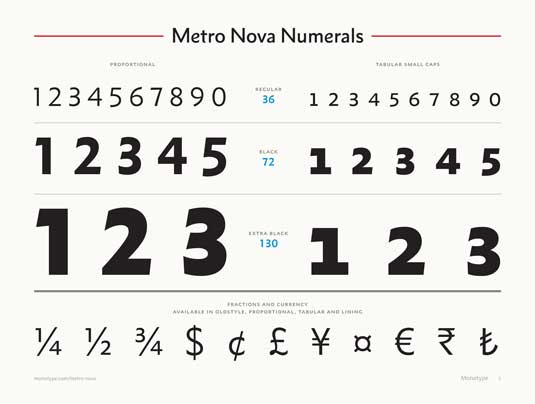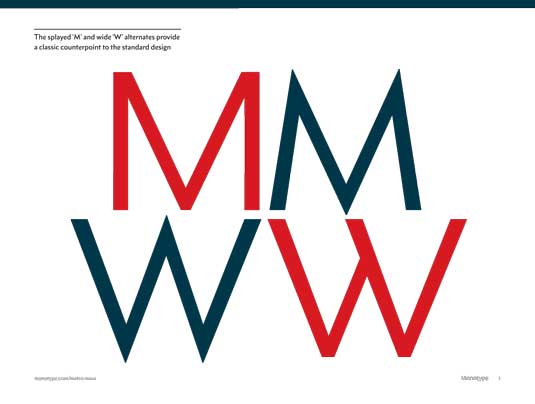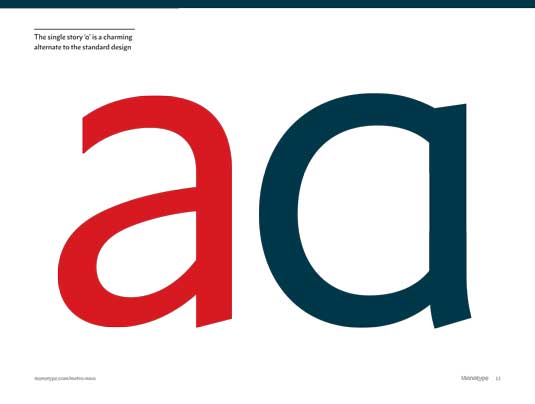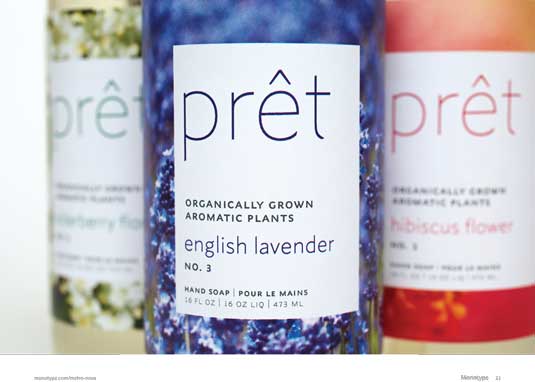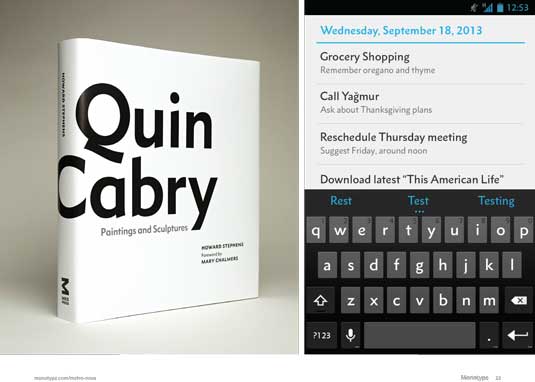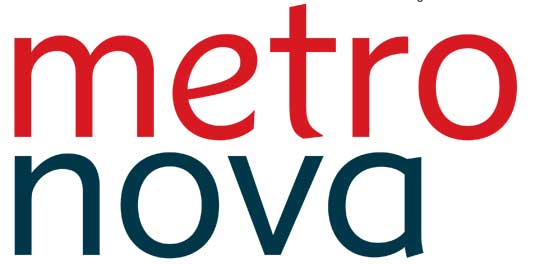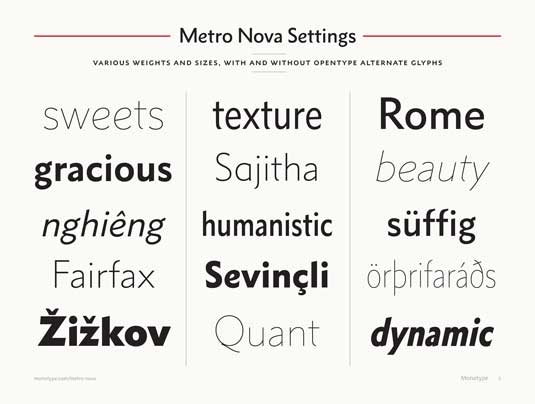
Font of the day: Metro Nova
Metro Nova by Toshi Omagari
Designed by Monotype's Toshi Omagari, the 26-font Metro Nova typeface family is a next-generation version of William Addison Dwiggins' Metro design.
The original fonts were used for standard typesetting machines for newspaper printing, magazines and posters from the late 19th century to the 1970s. It was particularly popular in North America in the 1950s because of its classic sans serif design with warm distinctive qualities.
Modernising the font
Omagari has worked to modify the design, removing duplexing restrictions to make it appeal to today’s digital requirements and design needs – but without sacrificing the essence of the original. "The lowercase 'e' is what I adore the most," he says. "It is said that you get the 'e' right when it looks like it's smiling, and the one in Metro Nova is exceptionally joyful — one that makes me smile, too.
"Designing type is an opportunity to maintain the visual aspects of a culture, as well as to bring it forward. Sensitivity to other languages and scripts is essential for a type designer. In the case of Metro Nova, I wanted to honor the original intent of Dwiggins."